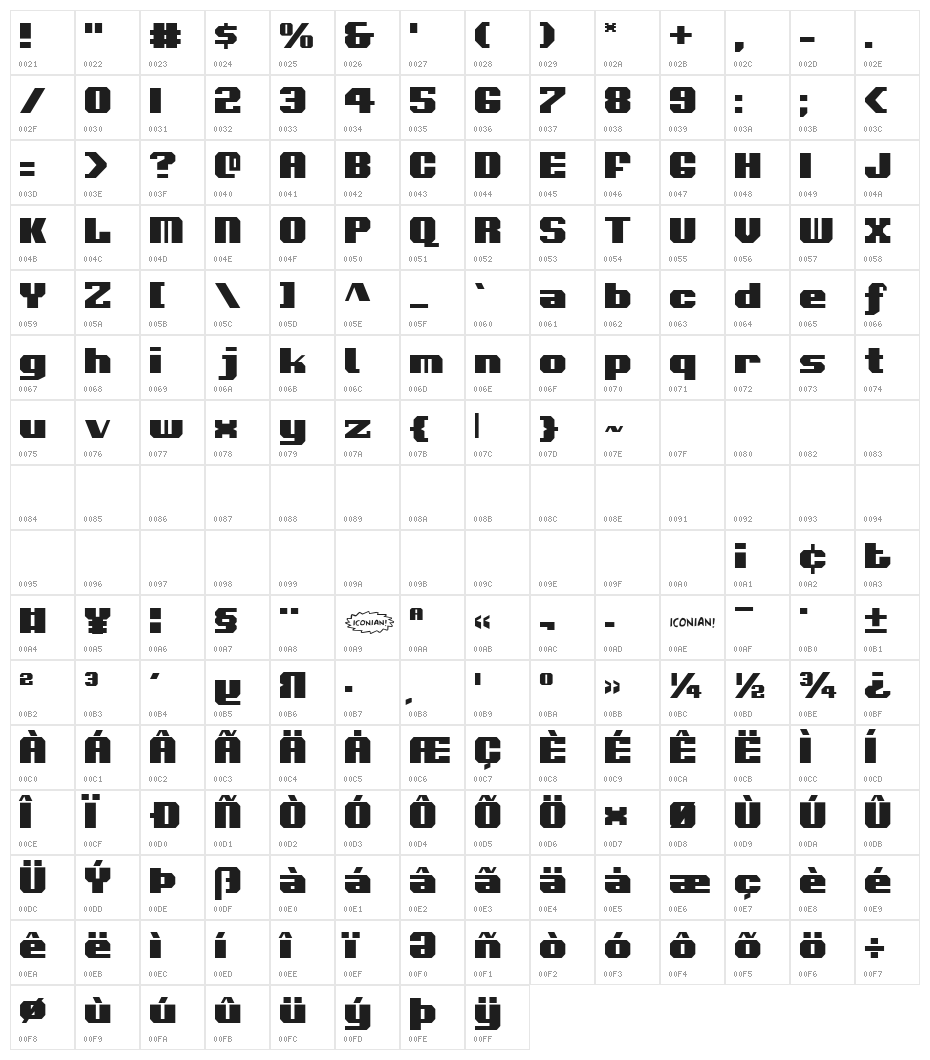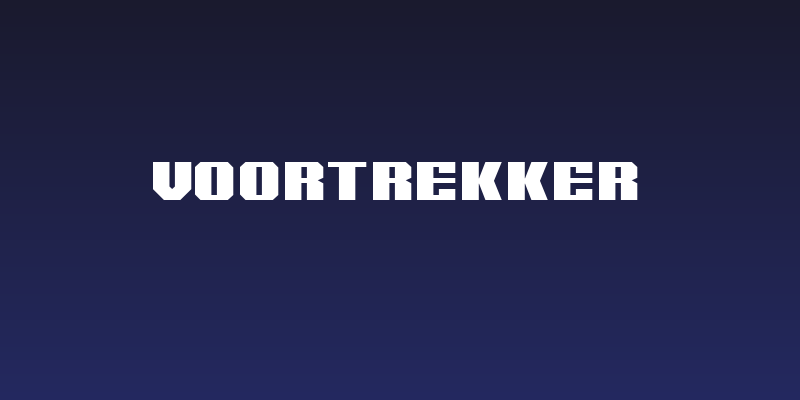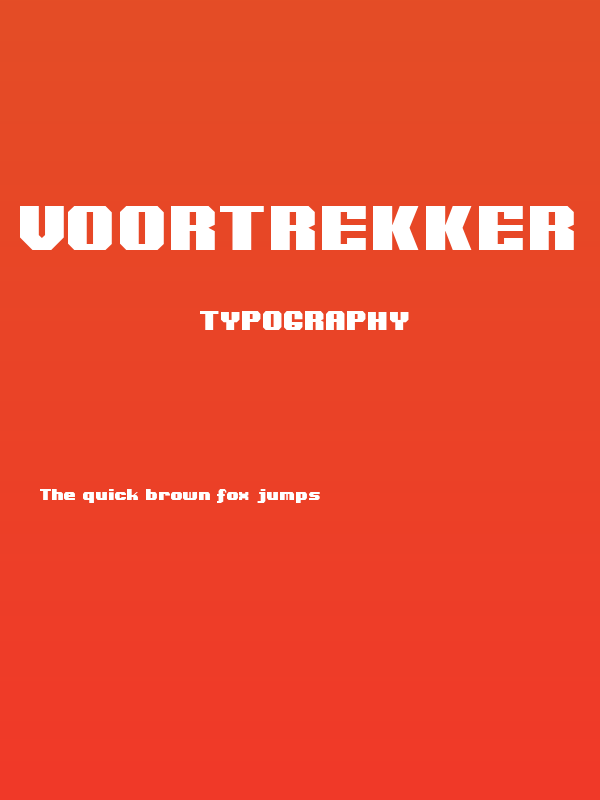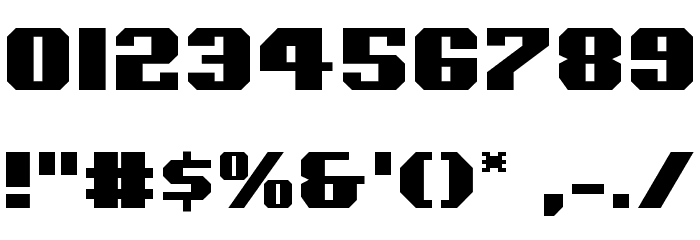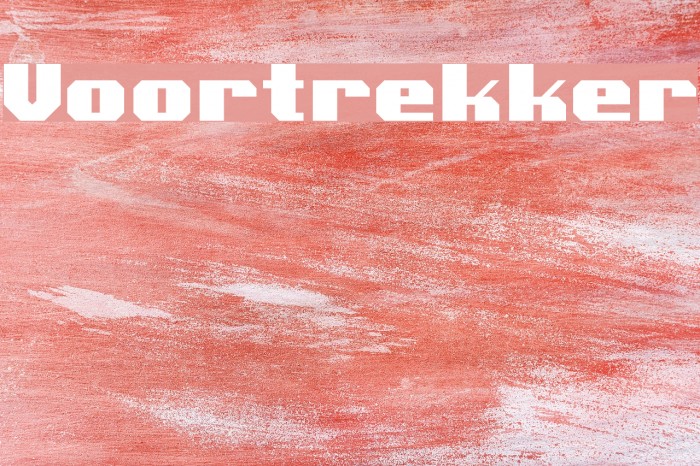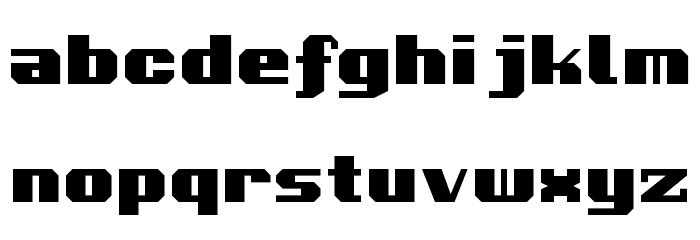
Voortrekker Font
Voortrekker Description
This font features a bold and geometric design with strong, angular lines and a distinct blocky appearance. The uppercase letters are particularly striking, with a uniform height and width that give them a robust and commanding presence. The lowercase letters maintain the same boldness, with slightly more variation in their shapes, adding a touch of dynamism. The numerals are consistent with the overall style, featuring the same angular and blocky characteristics. Special characters are well-integrated, maintaining the font's cohesive aesthetic. This font is ideal for projects that require a strong visual impact, such as posters, headlines, and branding materials.
| Proposed Projects | Ideal for posters, headlines, branding, and any project requiring a strong visual impact. |